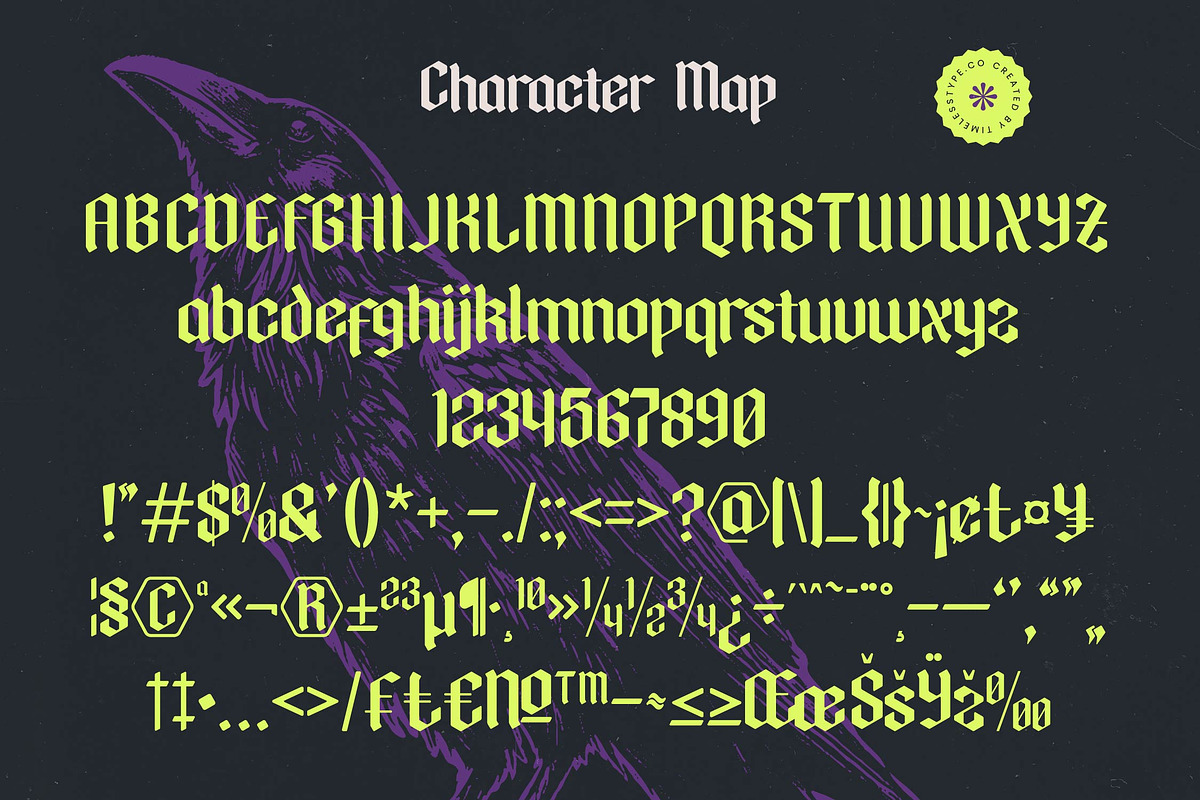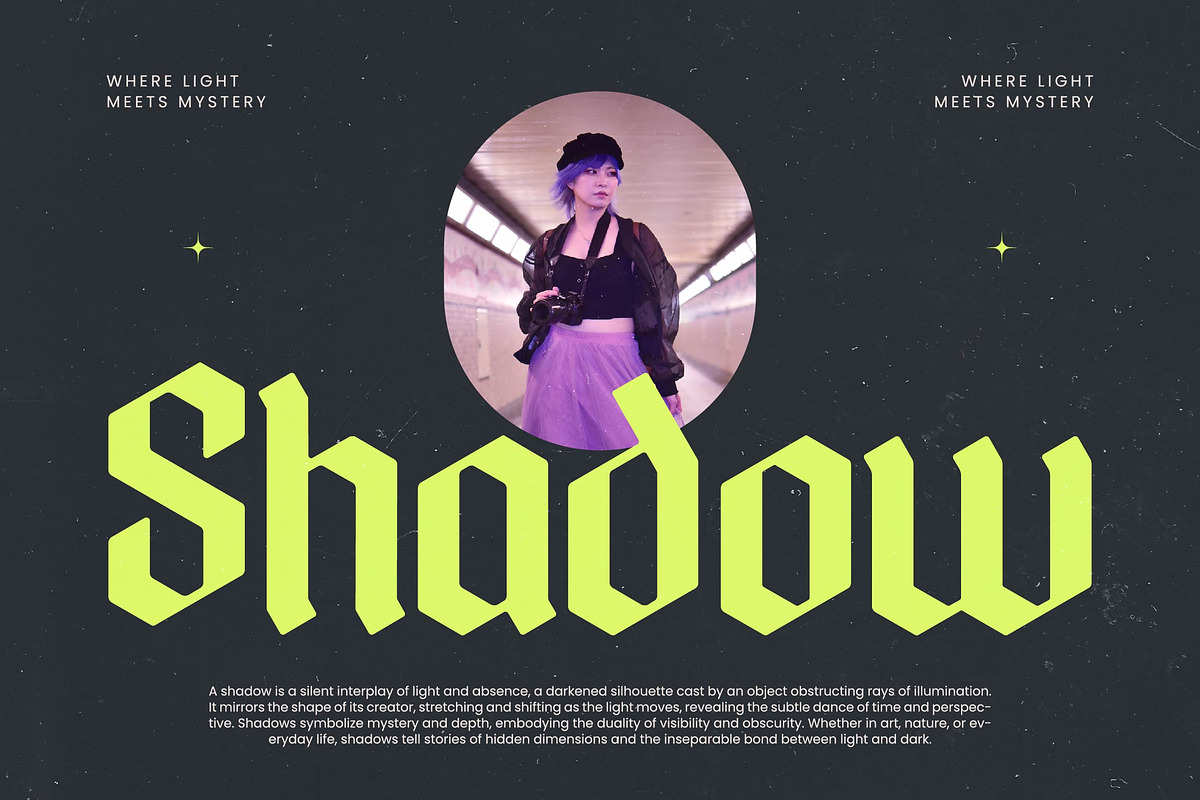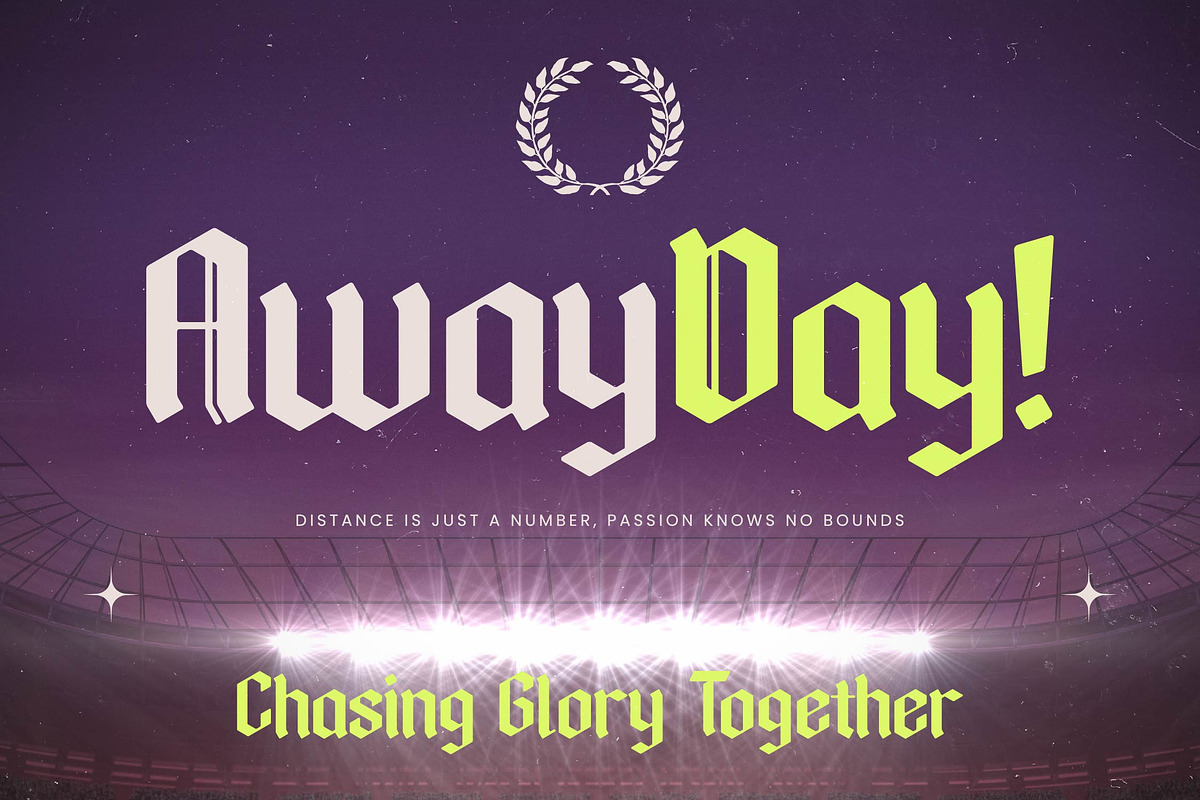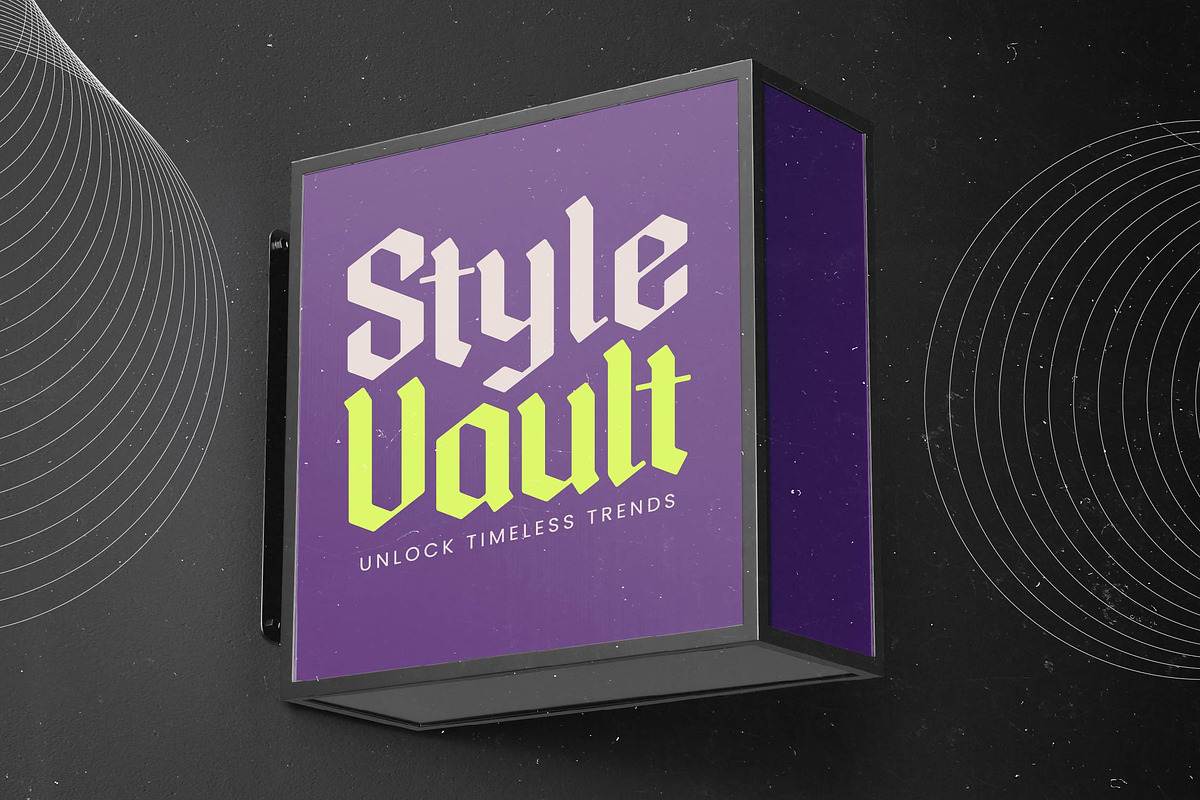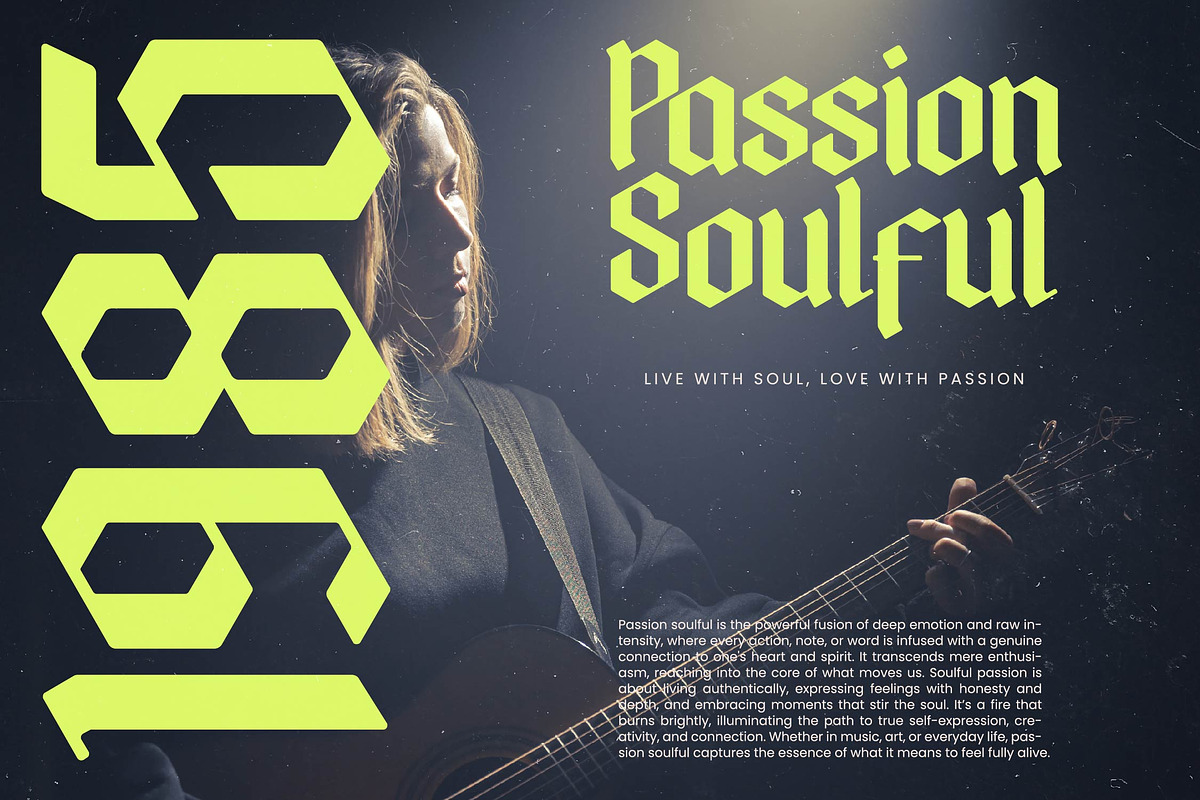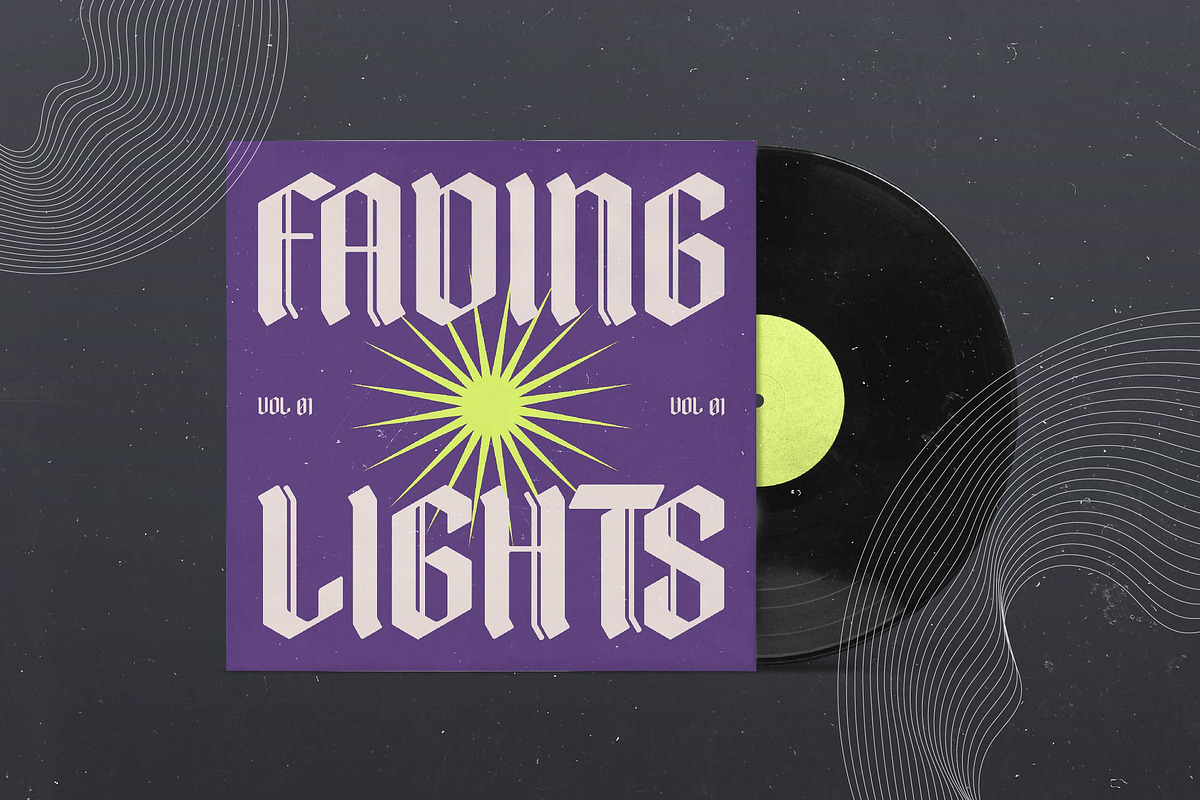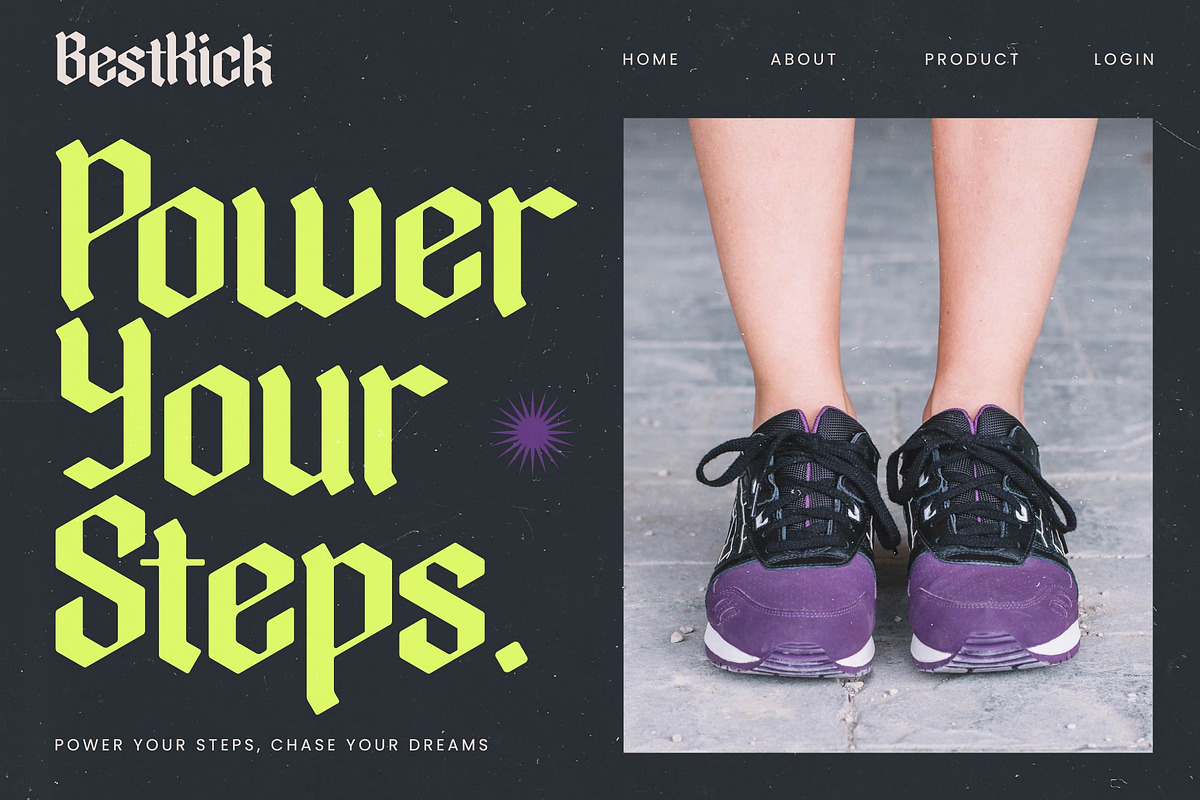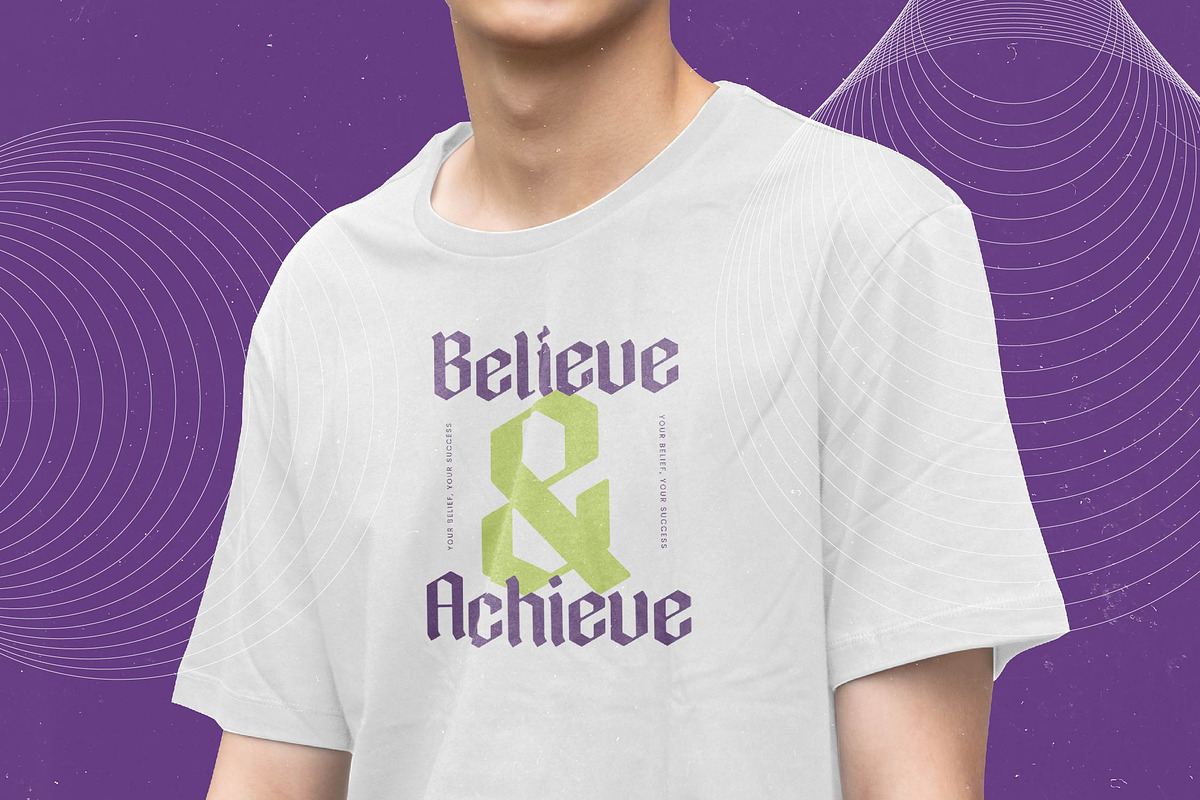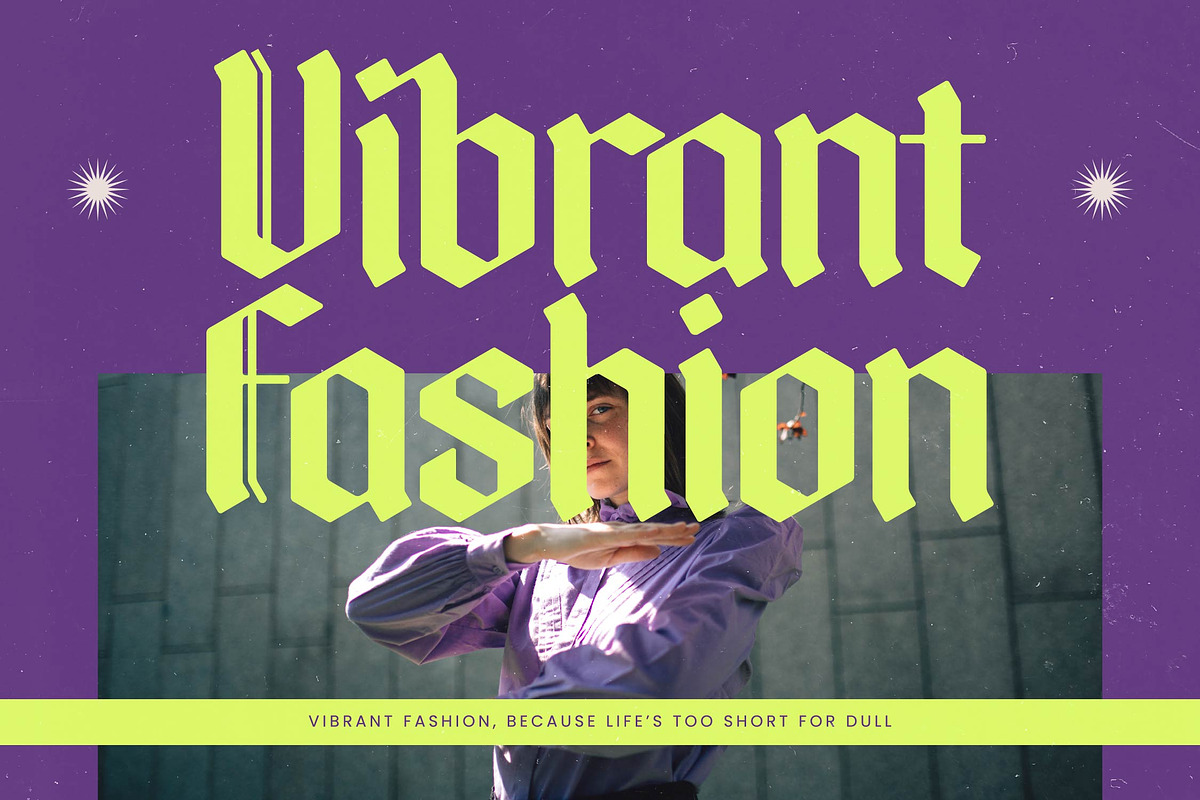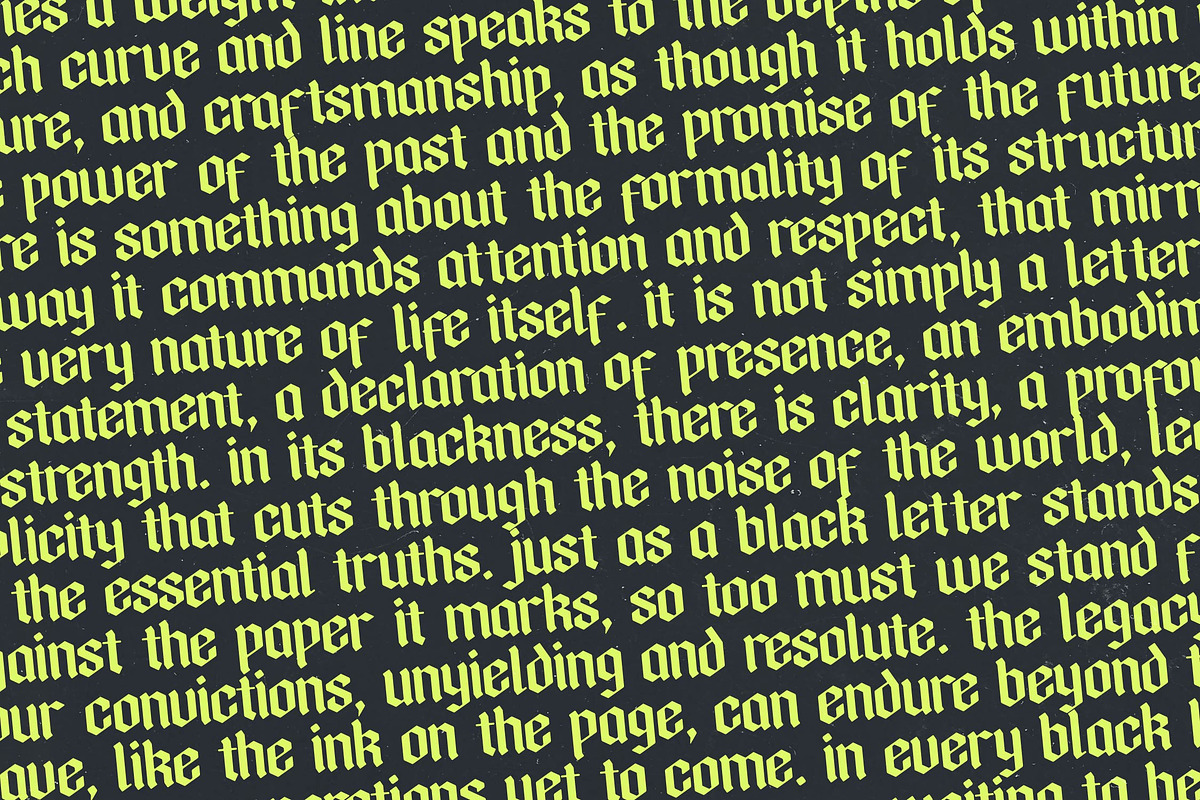
Mystic Venom Modern Blackletter
Unleash a dark, sophisticated elegance with Mystic Venom, a typeface that captures the enigmatic spirit of the night. This stylish blackletter font commands immediate attention with its razor-sharp edges and hauntingly beautiful silhouettes.
Inspired by the shadows of raven wings and ancient mystical scripts, this font bridges the gap between traditional gothic calligraphy and contemporary sharp aesthetics. The design evokes a sense of timeless mystery, perfect for projects requiring a touch of the macabre mixed with high-end refinement.
Built for maximum visual impact, this modern serif display alternative offers a unique twist on luxury typography through its aggressive gothic structures. Every stroke delivers a high-contrast experience that ensures a bold branding impact, making it an essential editorial font for those who dare to stand out from the crowd.
Following the current modern serif trend where sharp, aggressive forms meet high-fashion aesthetics, this typeface is a cornerstone of character-driven typography. It fits perfectly within the landscape of editorial display fonts, providing a sophisticated yet rebellious edge to any contemporary design layout.
From the darkness comes versatility; use it for bold logo design, high-end branding, or avant-garde editorial layouts. It is equally at home in edgy packaging for spirits, dark-themed wedding stationery with a gothic twist, or even high-street fashion branding and apparel.
This comprehensive pack includes a wealth of ligatures and alternates to customize your text, alongside full multilingual support. With a wide range of international characters, it ensures your message remains legible and striking across various global markets without losing its stylistic edge.